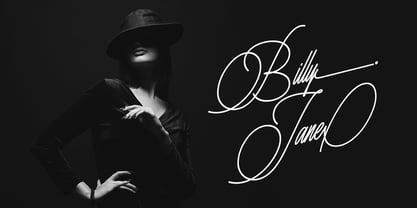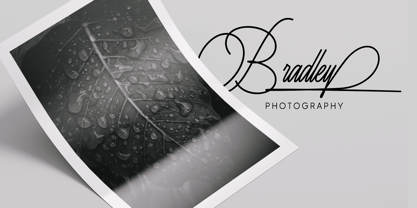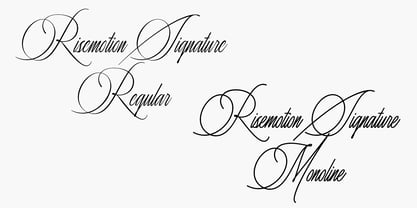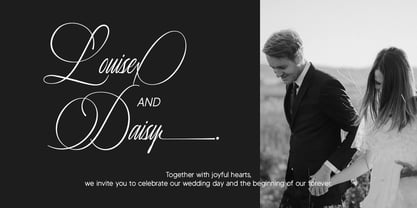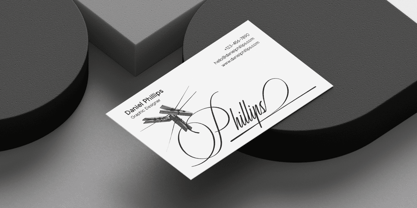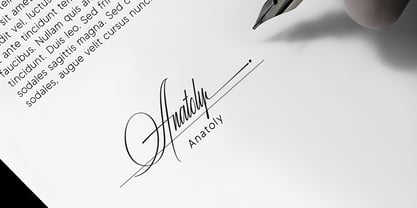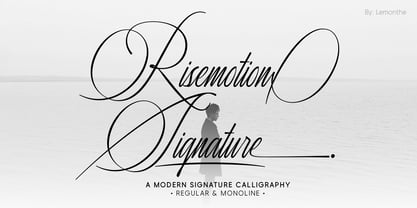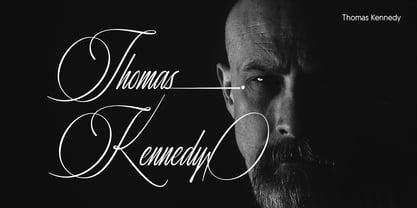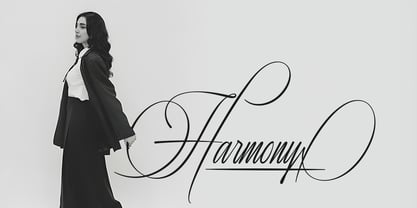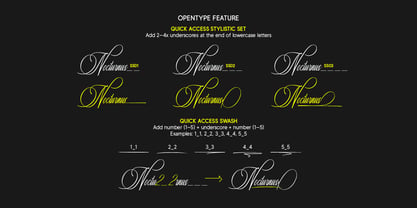
Risemotion Signature
The Risemotion Signature Font Family was designed by Dwi Ahidian and published by Lemonthe. Risemotion Signature contains 2 styles and family package options. More about this family
Risemotion Signature is a modern signature calligraphy font built with controlled letterforms, balanced stroke contrast, and consistent spacing. The font is designed to maintain readability and visual structure while supporting connected letterforms and decorative elements in a stable manner. Its construction allows flexible use across various design contexts, including branding, logos, wedding materials, editorial layouts, packaging, and digital graphics. Risemotion Signature provides a functional and consistent signature-style lettering solution suitable for professional design needs.
"Lemonthe is a type foundry operated by Dwi Ahidian, a letter enthusiast who enjoys calligraphy and loves experimenting with letter forms. Lemonthe provides a captivating collection of typefaces, each carrying a creative and unique experimental touch, meticulously crafted by hand. Dedication to detail ensures that some typefaces emanate a deep and serious aesthetic, while others showcase a more playful and creative side."